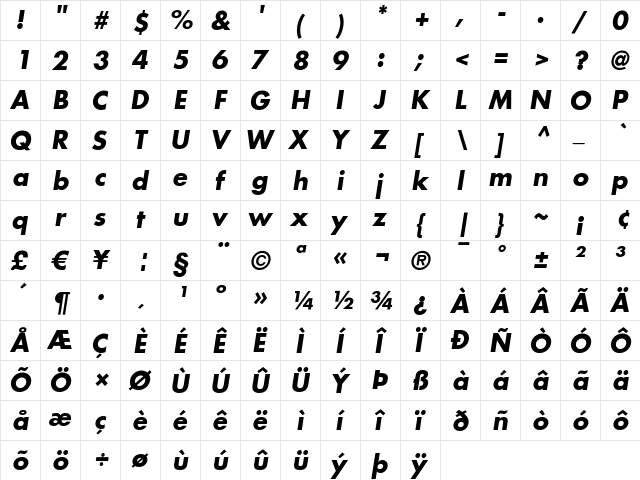
Futura LT BoldOblique Font Preview
Futura LT BoldOblique
Design Context for Futura LT Typeface
Futura LT has a distinctly futuristic character, with geometric precision and clean angles that feel at home in technology, gaming, and sci-fi contexts. The dynamic lean of this cut emphasises speed and emphasis in any layout. The heavy weight commands attention and anchors typographic hierarchies.
Pro Tip: Try Futura LT with generous letter-spacing in UI labels and navigation — the geometric forms benefit from room to breathe.